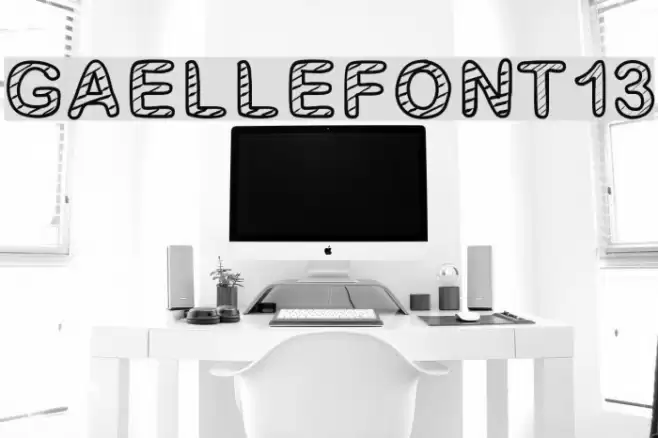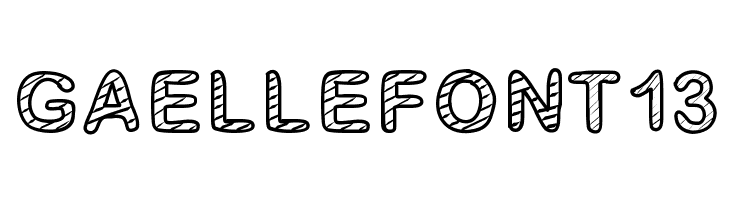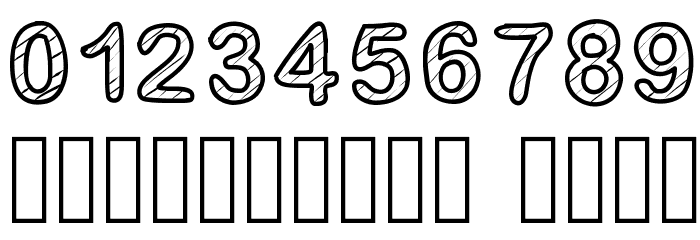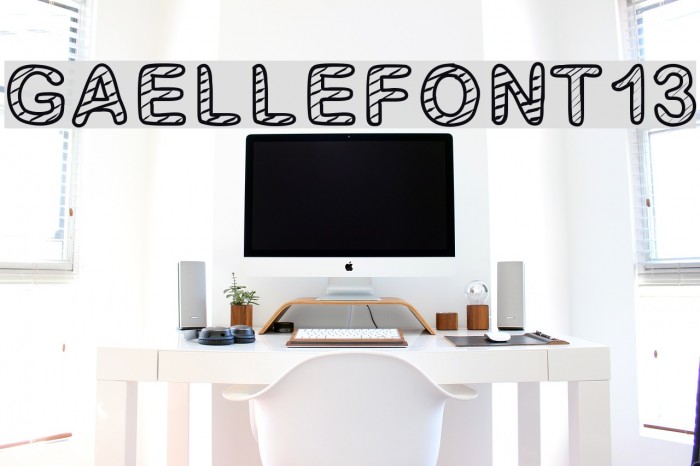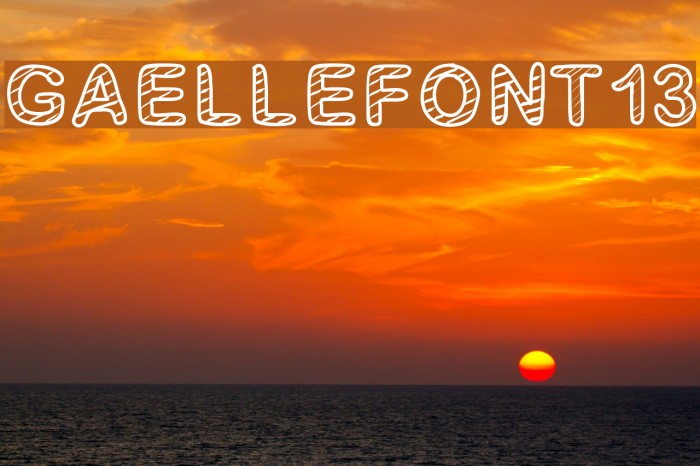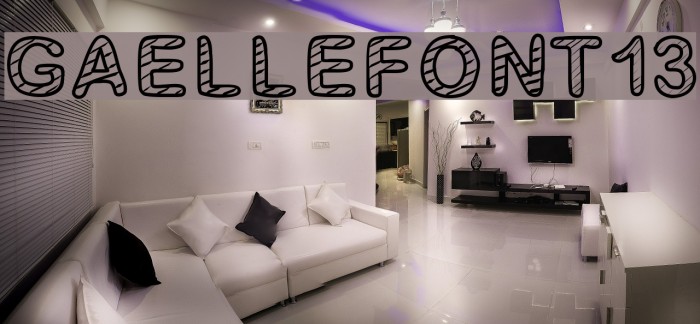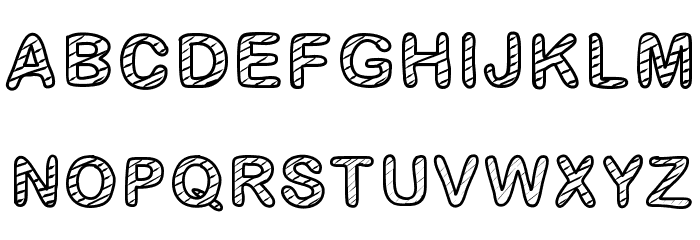
GaelleFont13 Font
GaelleFont13 Description
This font features a playful and decorative style, characterized by its outlined letters filled with diagonal stripes. The uppercase and lowercase alphabets maintain a consistent design, offering a cohesive look. The numerals follow the same pattern, ensuring uniformity across all characters. The special characters are also designed in this unique style, making it suitable for creative and eye-catching projects. The font's distinct appearance makes it ideal for use in designs that require a fun and engaging aesthetic.
A decorative font with outlined, diagonally striped characters from Cartoon fonts.
- Proposed Projects: Ideal for children's books, playful branding, posters, and creative invitations.
- Overall Style: Playful and Decorative